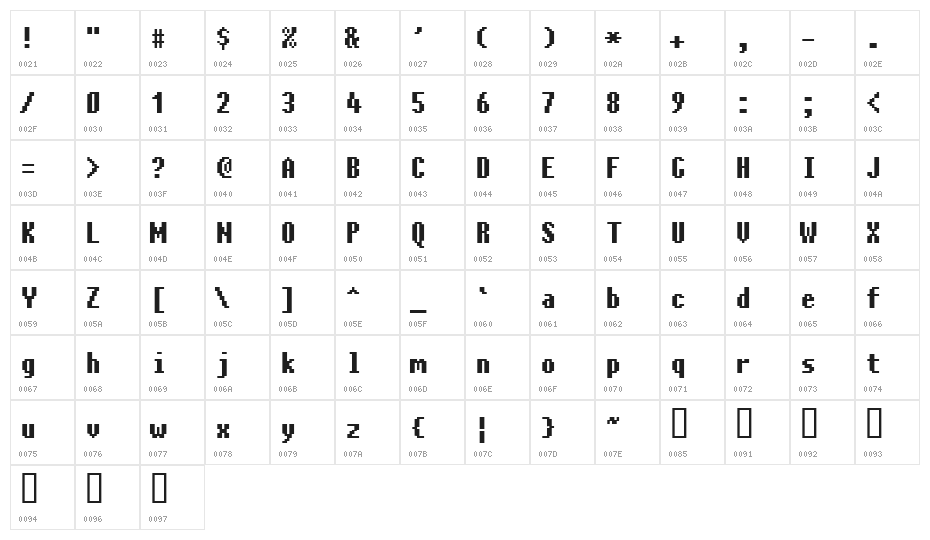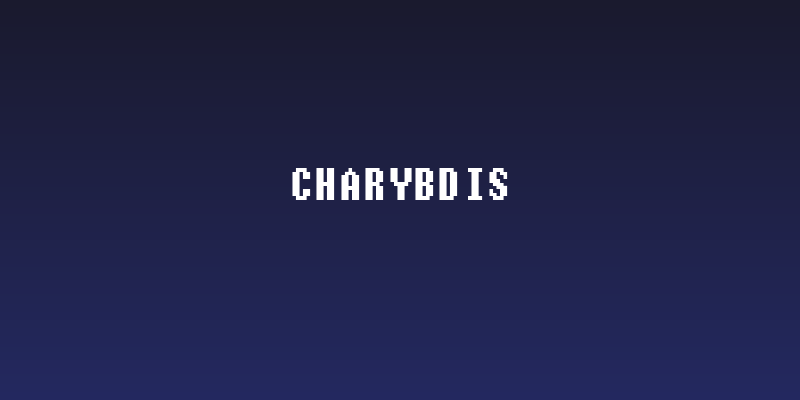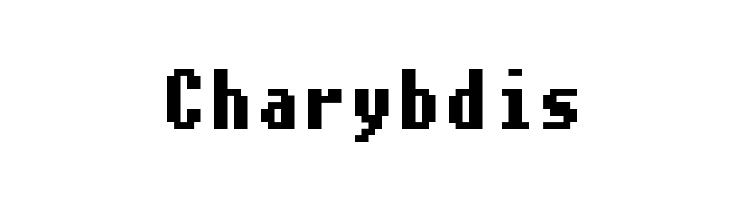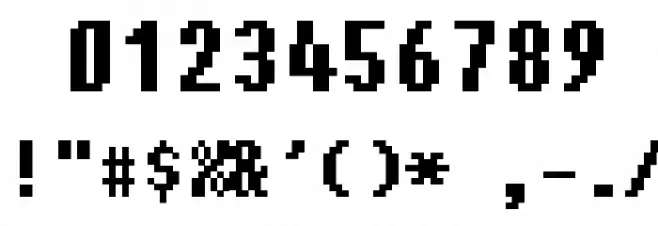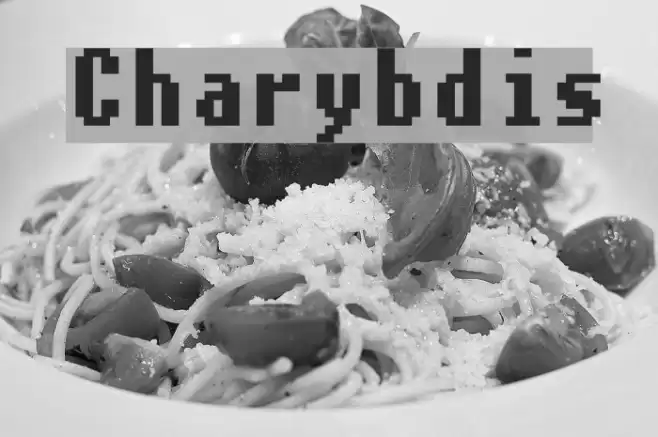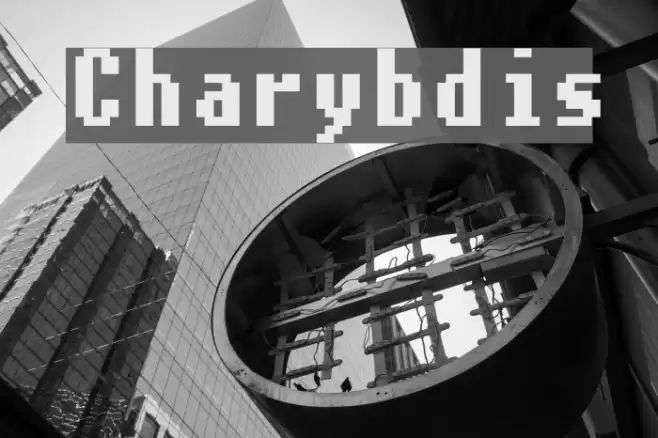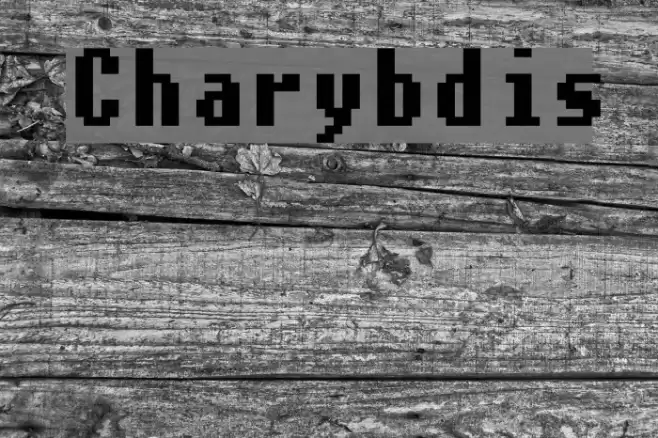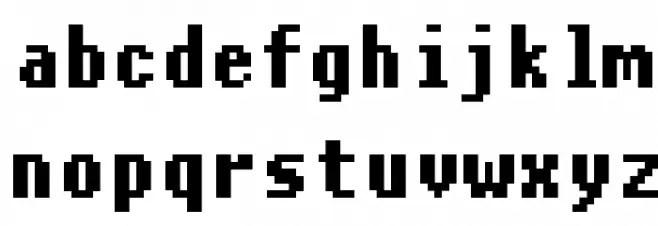
Charybdis Font
Charybdis Description
This font features a bold, pixelated design reminiscent of early digital displays and retro video games. Each character is constructed with a blocky, grid-like appearance, giving it a distinctly digital and vintage feel. The uppercase and lowercase letters maintain a consistent height and width, emphasizing uniformity and simplicity. Numbers and special characters follow the same pixelated style, ensuring a cohesive look across all text. The font's geometric structure and lack of curves make it highly legible at various sizes, ideal for capturing attention with its nostalgic charm.
| Overall Style | Vintage |
| Use Case | Headlines, Logos, Digital Art |
| Proposed Projects | Ideal for retro-themed designs, video game graphics, digital art projects, and any creative work seeking a nostalgic or vintage digital look. |